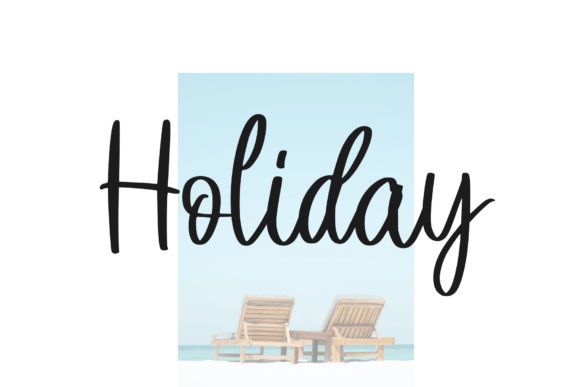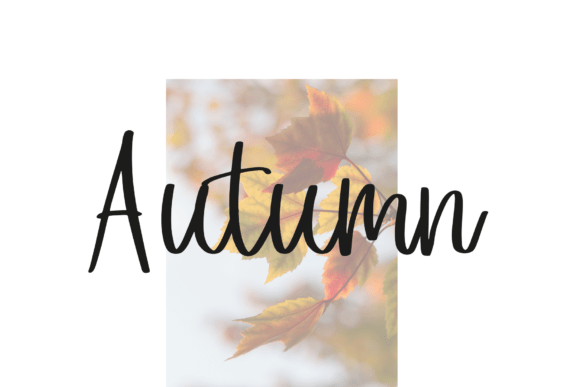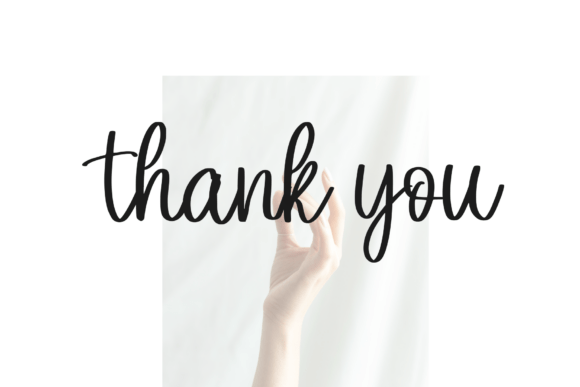
Introducing Branch Font: The Sweet and Cursive Handwritten Font
Are you looking for a font that can add a touch of elegance and joy to your designs? Look no further than Branch Font, a sweet and cursive handwritten font that is perfect for a variety of design projects. With its gentle and charming aesthetic, Branch Font is sure to elevate your designs and make them stand out.
What Makes Branch Font Special?
Branch Font is a unique and beautiful font that is designed to bring a sense of joy and chic to your designs. Its cursive and handwritten style gives it a personal and friendly feel, making it perfect for a wide range of applications. Whether you’re designing a wedding invitation, a greeting card, or a marketing campaign, Branch Font is the perfect choice.
Perfect for Branding and Logos
Branch Font is seamlessly suited for branding and logos, adding a touch of elegance and sophistication to your designs. Its unique and memorable style makes it perfect for creating a lasting impression on your customers. With Branch Font, you can create a brand identity that is both stylish and effective.
Wedding Invitations and Greeting Cards
Branch Font is a perfect choice for wedding invitations and greeting cards. Its sweet and romantic style adds a touch of warmth and personality to your designs, making them truly special. Whether you’re designing a formal or informal invitation, Branch Font is sure to make it stand out.
Fashion Lookbooks, Marketing Campaigns, and Promotions
Branch Font is not just limited to branding and logos or wedding invitations. It’s also perfect for fashion lookbooks, marketing campaigns, and promotions. Its joyful and chic feel adds a touch of style and sophistication to your designs, making them perfect for catching the attention of your target audience.
Why Choose Branch Font?
So, why choose Branch Font for your designs? Here are just a few reasons:
- Unique and Memorable Style: Branch Font has a unique and memorable style that will make your designs stand out.
- Versatile: Branch Font is versatile and can be used for a wide range of design projects.
- Elegant and Chic: Branch Font adds a touch of elegance and chic to your designs, making them perfect for high-end brands and luxury products.
- Easy to Read: Branch Font is easy to read, making it perfect for body text and captions.
- Use it as a Title Font: Use Branch Font as a title font to add a touch of elegance and sophistication to your designs.
- Pair it with Other Fonts: Pair Branch Font with other fonts to create a unique and memorable style.
In conclusion, Branch Font is a beautiful and versatile font that is perfect for a wide range of design projects. Its sweet and cursive handwritten style adds a touch of elegance and joy to your designs, making them stand out. Whether you’re designing a wedding invitation, a marketing campaign, or a logo, Branch Font is the perfect choice. So, why wait? Download Branch Font today and elevate your designs to the next level.